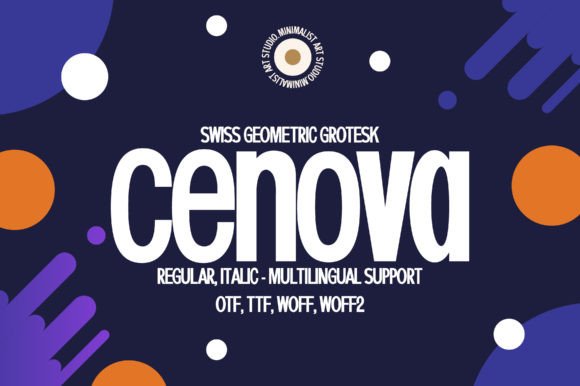
Welcome to the world of Cenova, the modern and minimalist font that will revolutionize your designs. Embrace the Swiss design principles that Cenova embodies, characterized by its geometric precision and condensed letterforms. This captivating font exudes sophistication and sharpness, making it the ideal choice for designers seeking a contemporary edge.
Cenova's versatility knows no bounds, effortlessly adapting to a wide range of creative projects. Its crisp lines and geometric shapes create a visually striking presence, guaranteed to make your designs stand out from the crowd. Whether you're crafting a modern logo, website, or anything in between, Cenova is your font of choice.
Step into a world of design possibilities with Cenova, where minimalism meets sophistication. Experience the power of Swiss design principles and unleash your creativity. Choose Cenova today and elevate your designs to new heights.